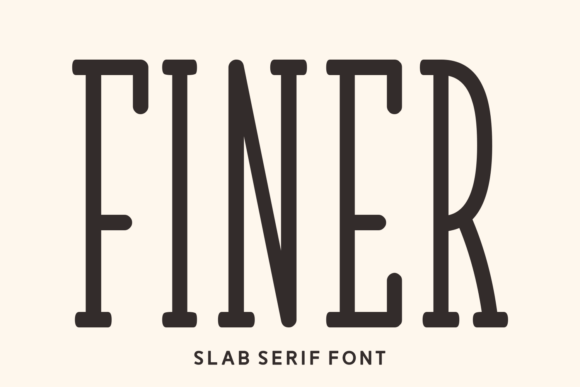
Finer Font Review: Elevating Small Business Branding
Using Finer Fonts for Artisan Product Packaging and Labels
When I first started consulting for a local candle maker who was transitioning from farmers' markets to wholesale retail, the biggest hurdle wasn't the scent profile or the wax quality; it was the label design. We needed a typeface that felt handcrafted yet premium, and this is where Finer proved to be a transformative choice among slab serif fonts. Introducing Finer Fonts into her packaging mockups created a world where typography comes to life, instantly bridging the gap between rustic charm and boutique sophistication. This is not merely a slab-serif font but an alternative approach to font design that makes every word you write stand out, which was exactly what we needed to differentiate her products on crowded shelves.
In practical application, Finer works exceptionally well for product names and short descriptive phrases on glass jars and matte paper labels. The weight of the serifs provides enough anchor to remain legible against textured backgrounds, while the unique character shapes prevent the branding from looking like a generic template. For small business owners handling their own packaging design, this font offers a distinct advantage: it carries the visual weight of a custom logotype without the custom price tag. When printing on kraft paper or embossed cardstock, the sturdy construction of Finer maintains its integrity, ensuring that your brand identity looks intentional and polished rather than accidental. It is perfect for establishing a tactile connection with customers before they even experience the product inside.
Finer for Café Menus and Readable Signage Design
Another real-world test for Finer involved refreshing the seasonal menu for a neighborhood café that wanted to move away from cluttered chalkboard aesthetics toward clean, printed table cards. As one of the more versatile display fonts available today, Finer provided the necessary hierarchy to make high-margin items pop without screaming for attention. In the context of food and beverage branding, readability is paramount, and Finer strikes a rare balance between decorative flair and functional clarity. The letterforms are open enough to be scanned quickly by hungry patrons, yet they possess enough personality to reinforce the café’s artisanal coffee ethos.
We utilized Finer specifically for category headers like "Morning Brew" and "Fresh Baked," pairing it with a neutral sans serif for the item descriptions and pricing. This combination is crucial because while Finer is beautiful, it is a display typeface meant to guide the eye, not to serve as body text for long paragraphs. By using Finer for the headlines, we created visual entry points that made the menu feel curated and digestible. For business owners designing their own signage or digital menu boards, remember that this font shines brightest at larger sizes. On a backlit screen or a printed A5 card, the nuances of the slab serifs add warmth that standard system fonts simply cannot achieve, making the dining experience feel more personal and considered.
Applying Finer in Social Media Graphics and Digital Branding
Digital consistency is often where small brands falter, but integrating Finer into Instagram templates and website banners helped create a cohesive visual language for a handmade jewelry client. When introducing Finer Fonts to her social media strategy, we found that the typeface translated beautifully to mobile screens, where space is limited and impact must be immediate. This is not merely a slab-serif font for print; it is an alternative approach to font design that makes every word you write stand out in a fast-scrolling feed. Perfect for quote graphics, sale announcements, and new collection reveals, Finer adds a layer of editorial elegance that elevates user-generated content and promotional posts alike.
The key to using Finer in digital spaces is understanding contrast and negative space. Because the font has such strong character, it doesn't need heavy drop shadows or complex effects to be noticed. In fact, simple white text on a muted background often yields the most professional result. For online shop banners, Finer communicates trustworthiness and style, signaling to potential customers that the brand pays attention to details. If you are creating Canva templates or custom graphics for your business, try using Finer for the primary hook or value proposition, keeping supporting text in a lighter weight. This ensures your message is absorbed instantly, turning passive scrollers into engaged visitors who recognize your brand voice through typography alone.
Pairing Finer with Sans Serif Fonts for Professional Stationery
Typography never exists in a vacuum, and knowing how to pair Finer with complementary fonts is essential for business cards, thank-you notes, and invoices. During a rebrand for a floral studio, we used Finer for the business name and tagline, anchoring it with a clean, geometric sans serif for contact details and social handles. This juxtaposition highlights why Finer is such a valuable asset in the designer's toolkit; its structured serifs provide a stable foundation that allows simpler fonts to function purely as information carriers. The result is stationery that feels established and reliable, qualities that are non-negotiable when asking clients to trust you with their most important events.
For non-designers attempting this pairing, the rule of thumb is contrast in style but harmony in mood. Avoid pairing Finer with another decorative script or ornate serif, as this creates visual competition that confuses the reader. Instead, let Finer be the star of the show. Use it for the "Thank You" on packing slips or the header on your invoice template. These small touchpoints are often overlooked, but they are prime real estate for reinforcing brand recall. When a customer receives a package where even the administrative paperwork is typeset with care, it validates their purchase decision and encourages repeat business. Finer transforms mundane business necessities into subtle branding opportunities.
Additionally, explore any included alternates or ligatures that might enhance your specific application. Some versions of Finer may offer stylistic sets that soften the edges for a more vintage feel or sharpen them for a modern edge. Testing these variations in your actual layout before finalizing production can save costly reprinting fees. Remember that while Finer is an incredibly capable slab serif, it is a tool that requires thoughtful implementation. Check the kerning at large sizes, test print on your actual packaging material, and view digital proofs on multiple devices. By treating typography selection with the same rigor as product development, you ensure that Finer serves as a lasting pillar of your brand identity rather than just a temporary aesthetic trend.